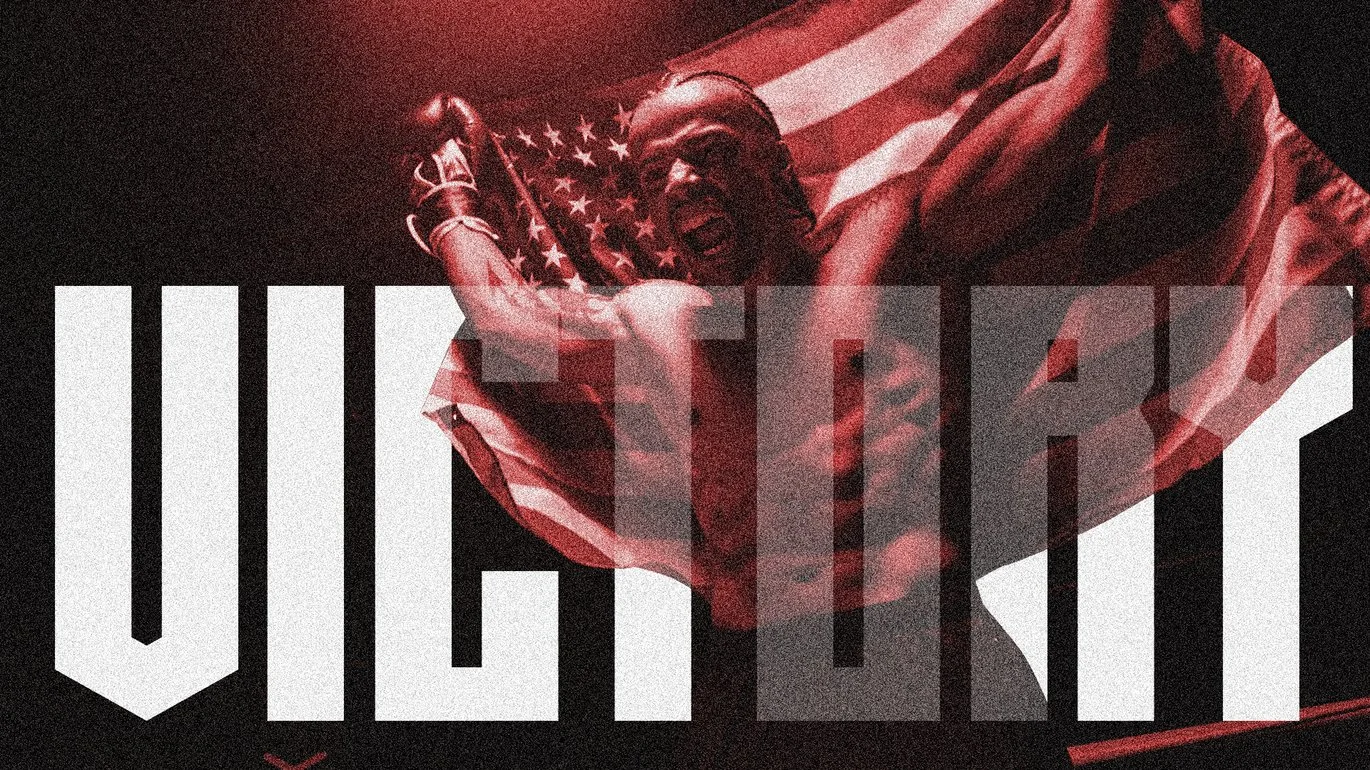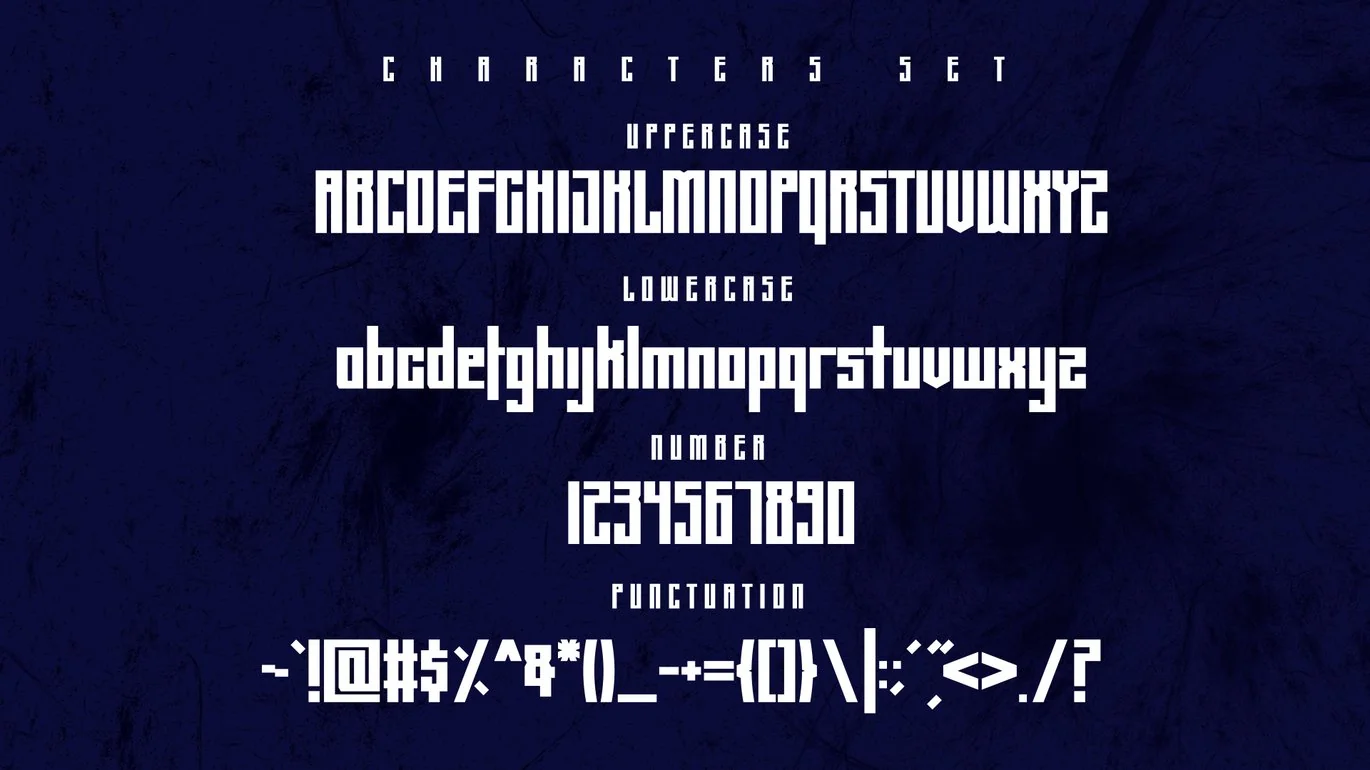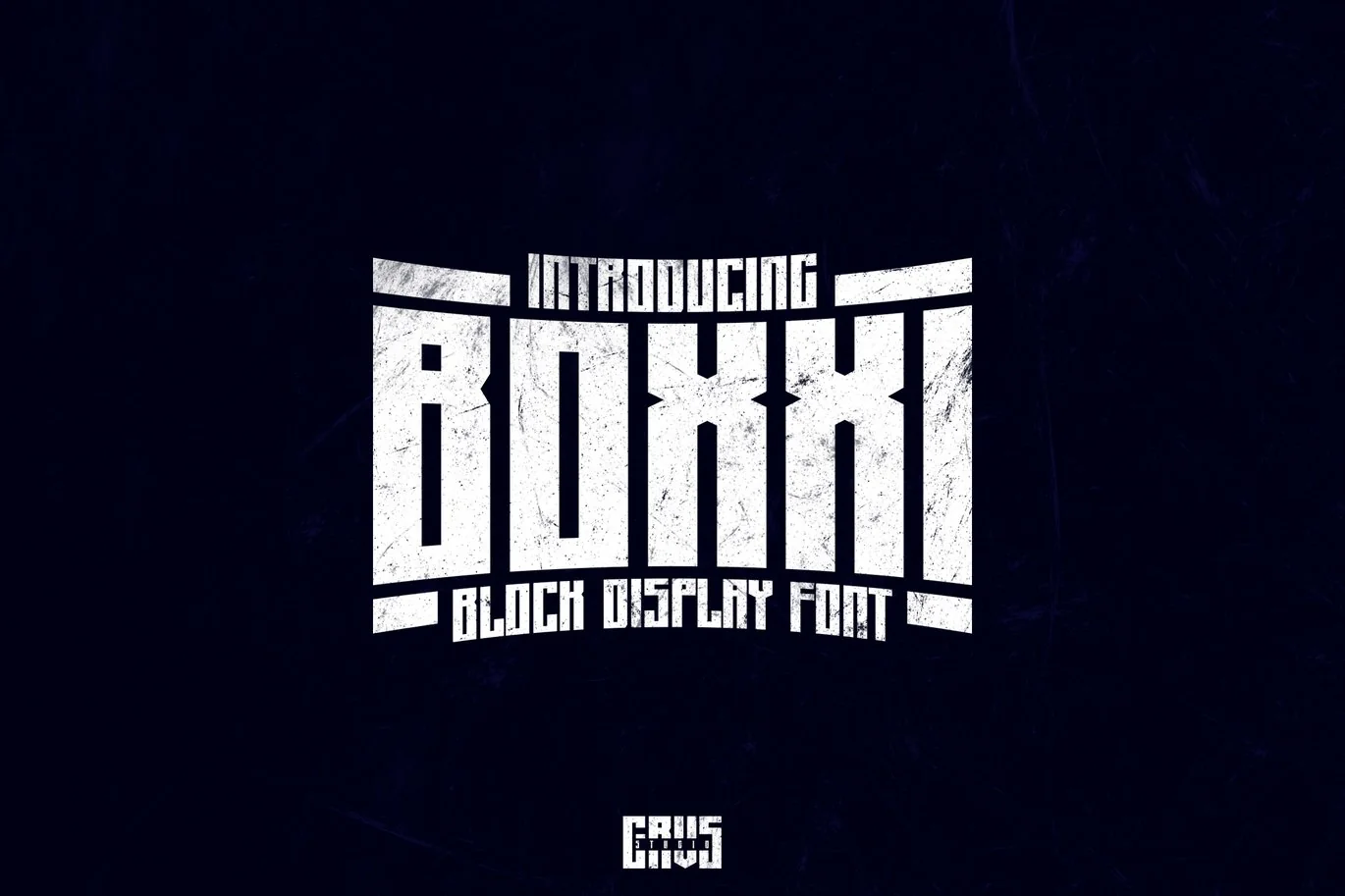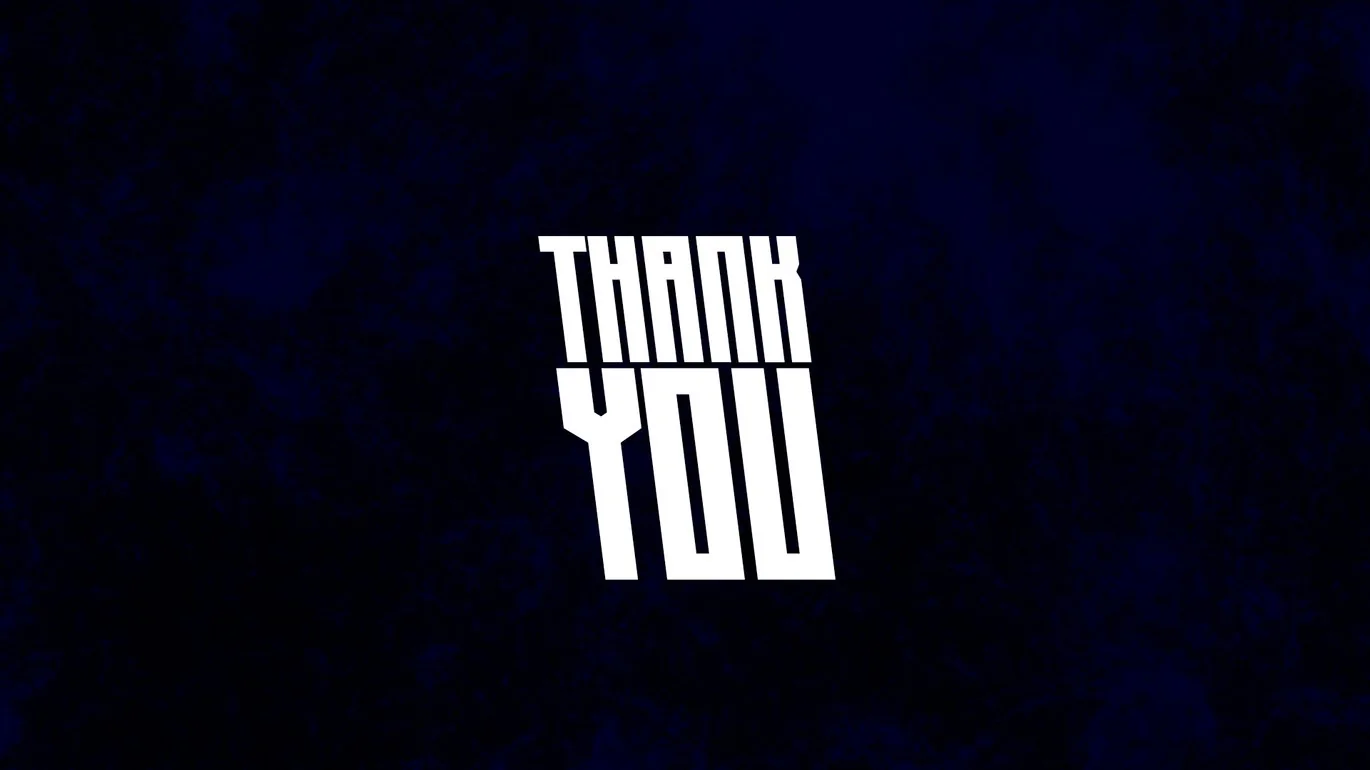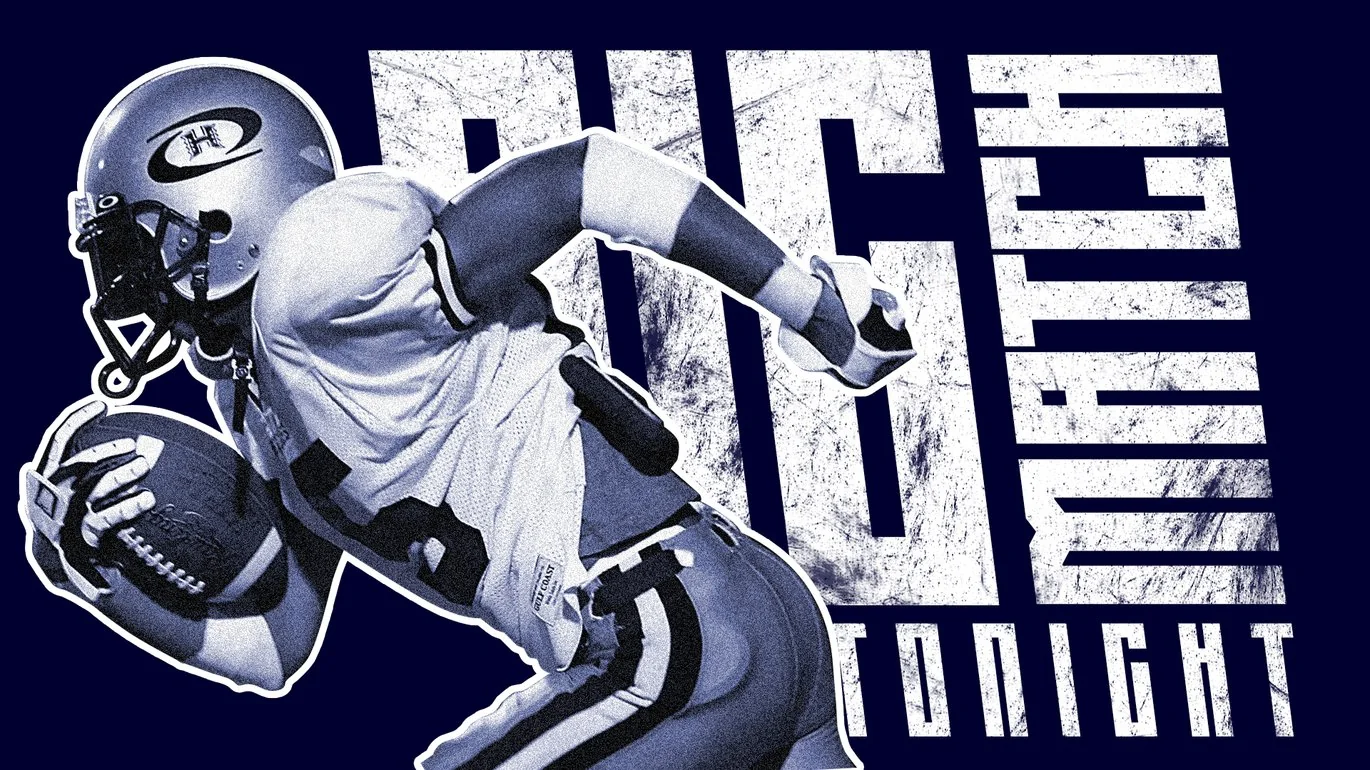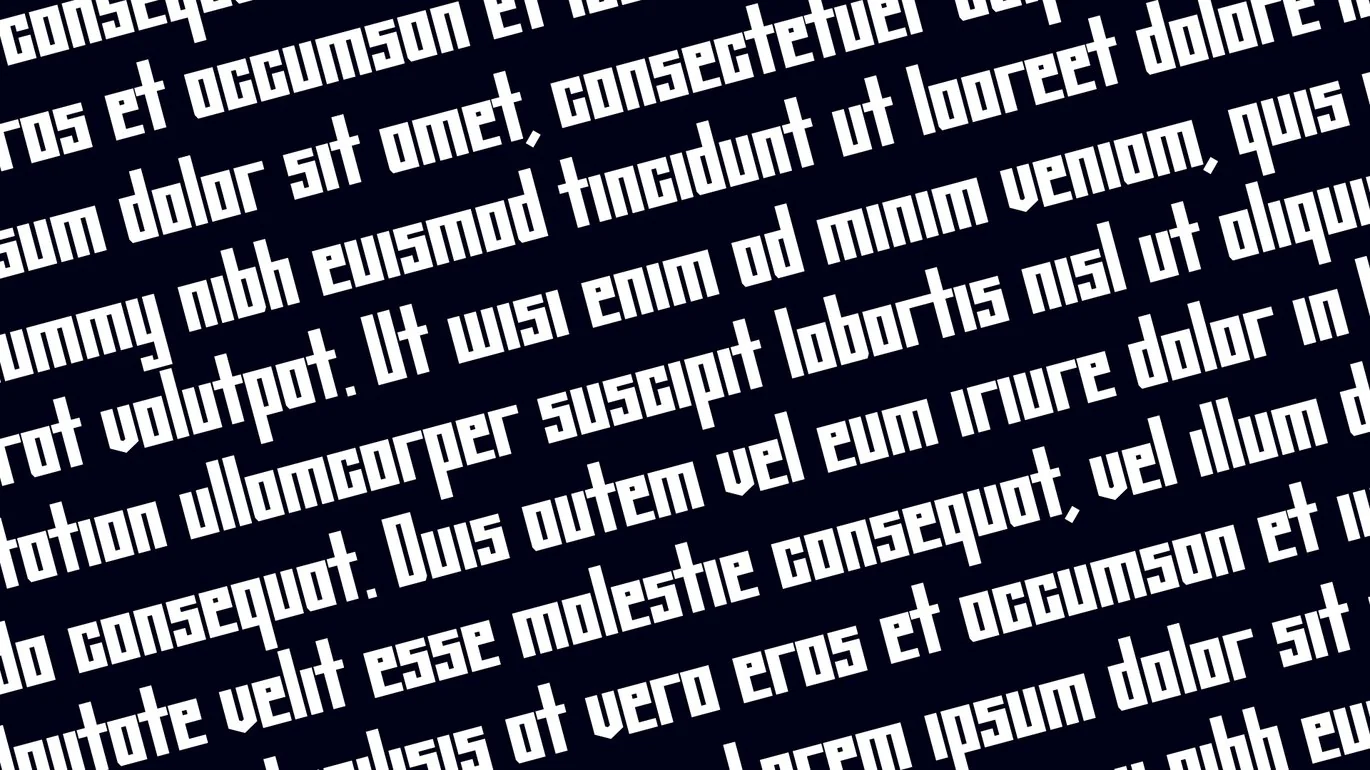
Boxxi Font
GRVS Boxxi Font is our new item that is suitable for your team logo, or community logo with Sports theme.
Great for Logo, Sticker, Jersey, Invitation Card, Brochures, etc.